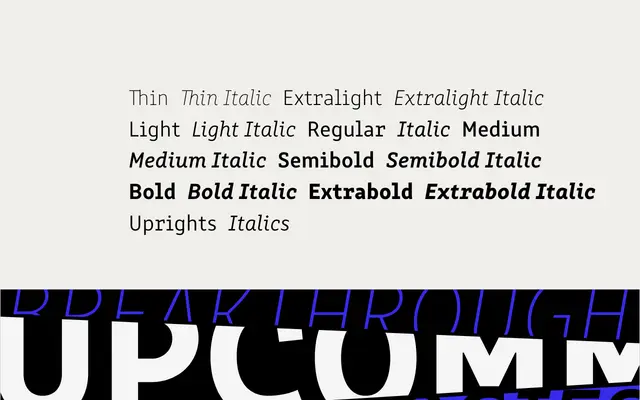
Clone PE
A quasi-monospaced geometric sans with semi-serif details and minimal stroke contrast, designed to evoke the rhythm of a typewriter across Latin, Cyrillic and Greek scripts.
Clone PE uses quasi-monospaced forms and semi-serif characters to simulate the look and feel of a typewriter while maintaining the structural order of a geometric sans. Eight weights run from Thin to Extrabold with matching italics, and the family ships as variable fonts for both uprights and italics. Latin, Cyrillic and Greek coverage makes it suited to multilingual editorial and technical contexts.
Clone PE presents quasi-monospaced, semi-serif forms with minimal stroke contrast, drawing on geometric construction while simulating the look and feel of a typewriter — placing it within a geometric sans tradition with technical and mono-adjacent characteristics.